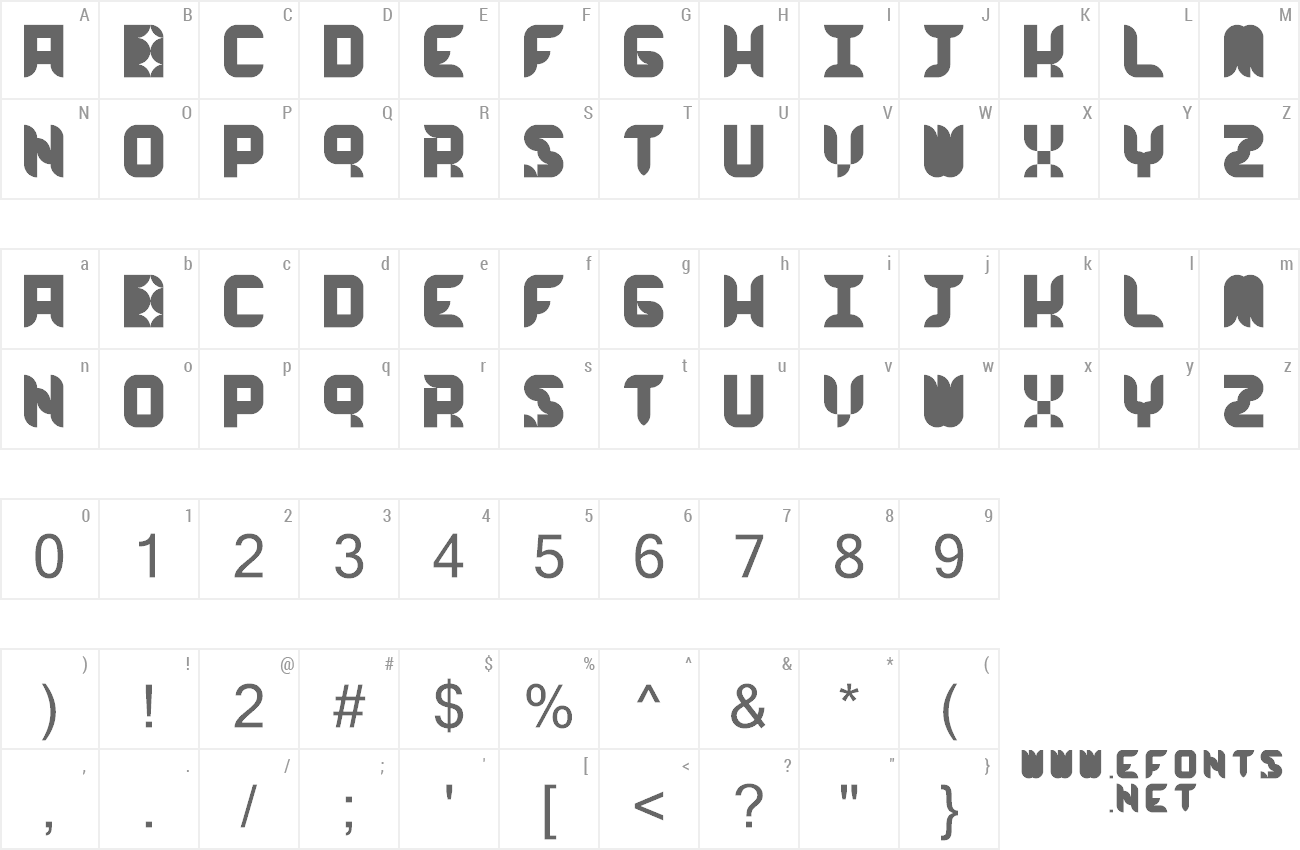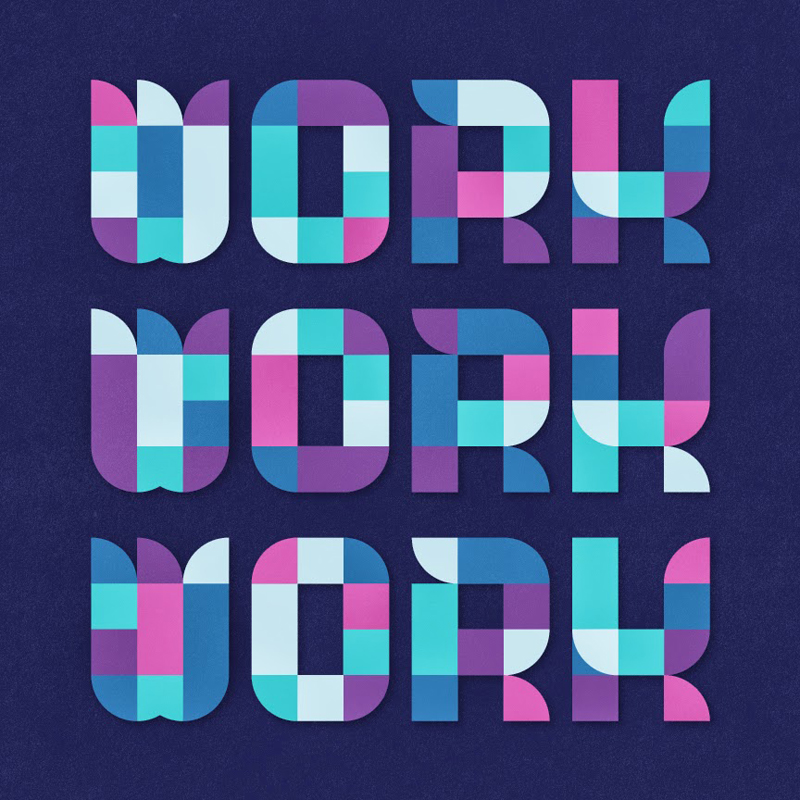
| Font name: | Work Work Work |
| Author: | Mathspy Terabithian |
| Note by Mathspy Terabithian | |
This is my very first font, and I have created it FULLY. But the idea itself is not mine, it's Brent Couchman's idea. http://www.flickr.com/photos/brentcouchman/ From this picture here http://www.flickr.com/photos/brentcouchman/6229448777/ It looked way too good that I had to make it a font, and here it is! I hope you enjoy it! And thank you very much for using it. It's fully free, so you can use it for anything you want really. If you want to see more works by me, you can go to my YouTube channel here: www.youtube.com/user/MathyWords P.S: There was no better name than how it all start. WorkWorkWork. |